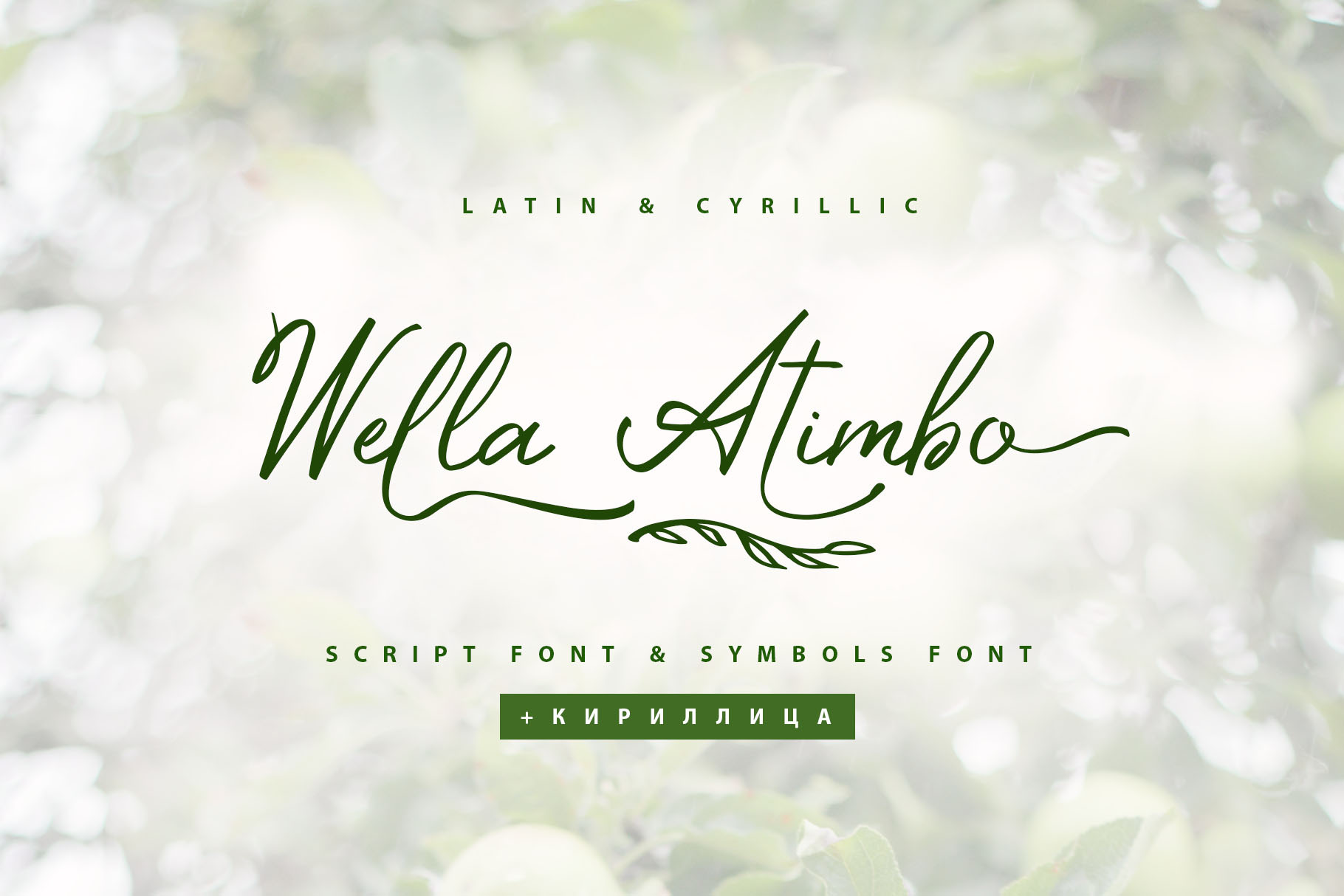
The Wella Atimbo Cyrillic font is a handwritten calligraphic signature script font. It is the font pair with will be the best option for branding, logos, wedding invitations, social media, packaging, business cards, DIY projects, social media, and many others.
Wella Atimbo Latin part contains a full set of uppercase letters and 2 full sets of lowercase letters, (standard, and final forms with teils. To make a needed form type a letter with a number such as a1, b1, c1...after that select the word and apply the Open Type Features in programs such as Adobe Illustrator, Photoshop, and others) Some letters have 2 variations of final forms. Use the numbers 1 or 2 to get it.
And 17 ligatures can be used to create a handwritten calligraphy look.
The Cyrillic part of the font contains uppercase letters and 2 complete sets of lowercase letters, (standard, and final form. To make a needed form type a letter with a number such as a1, б1 в1... After that select the word and apply the Open Type Features in programmes such as Adobe Illustrator, Photoshop, and others)
Multilingual Support for 33 languages: Latin glyphs for Afrikaans, Albanian, Basque, Bosnian, Catalan, Danish, Dutch, English, Estonian, Faroese, Filipino, Finnish, French, Galician, Indonesian, Irish, Italian, Malay, Norwegian Bokmål, Portuguese, Slovenian, Spanish, Swahili, Swedish, Turkish, Welsh, Zulu.
And Cyrillic glyphs support Russian, Belorussian, Bulgarian, Ukrainian, and Kazakh languages.